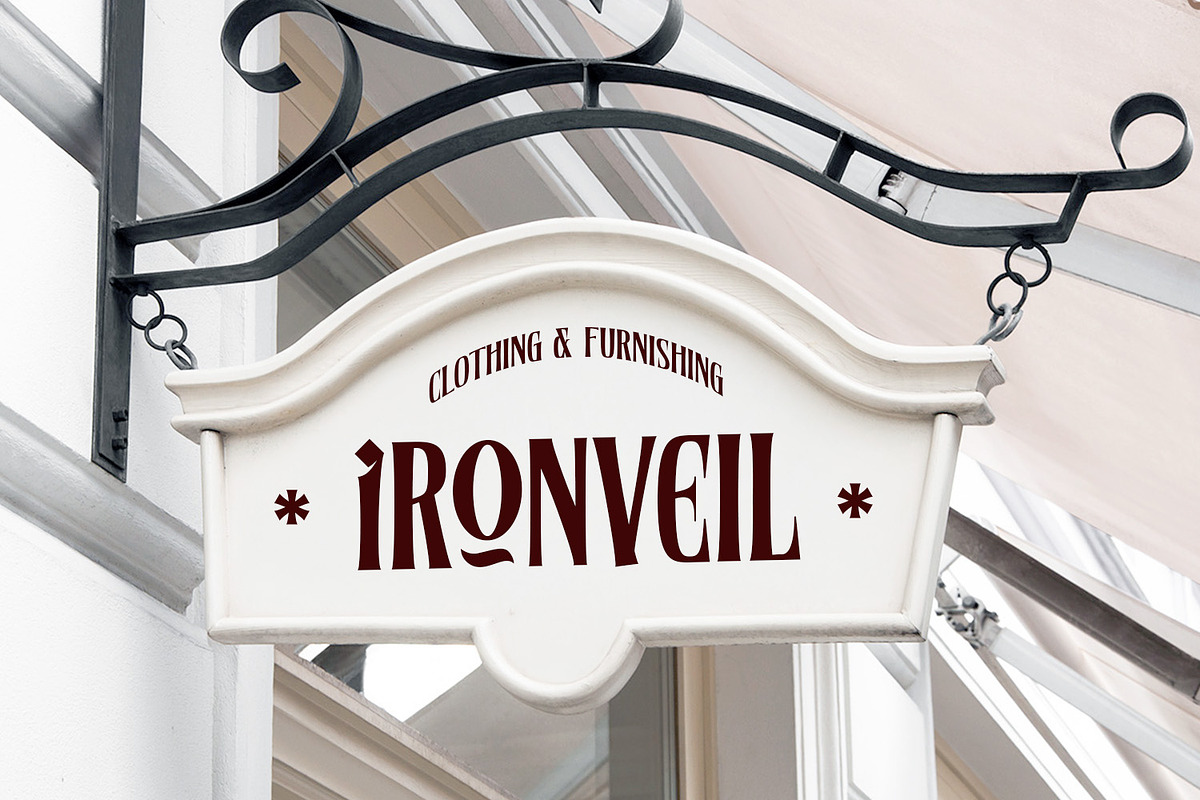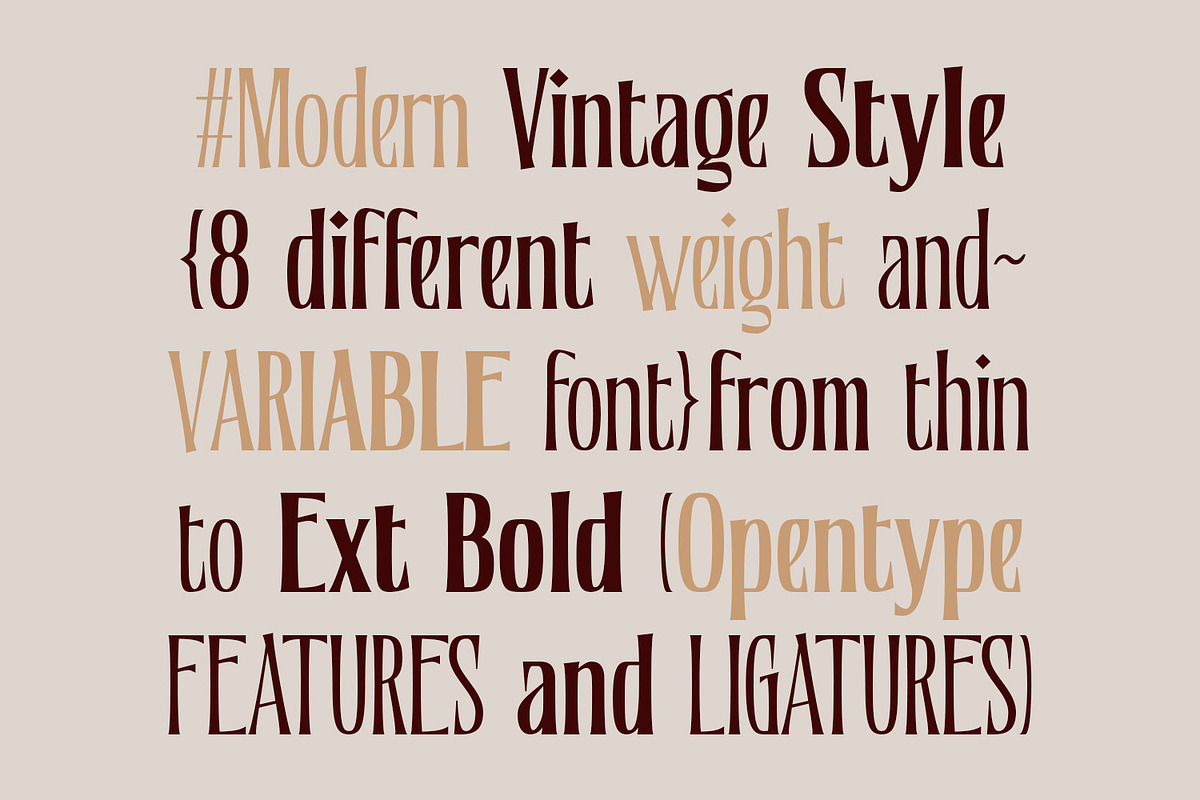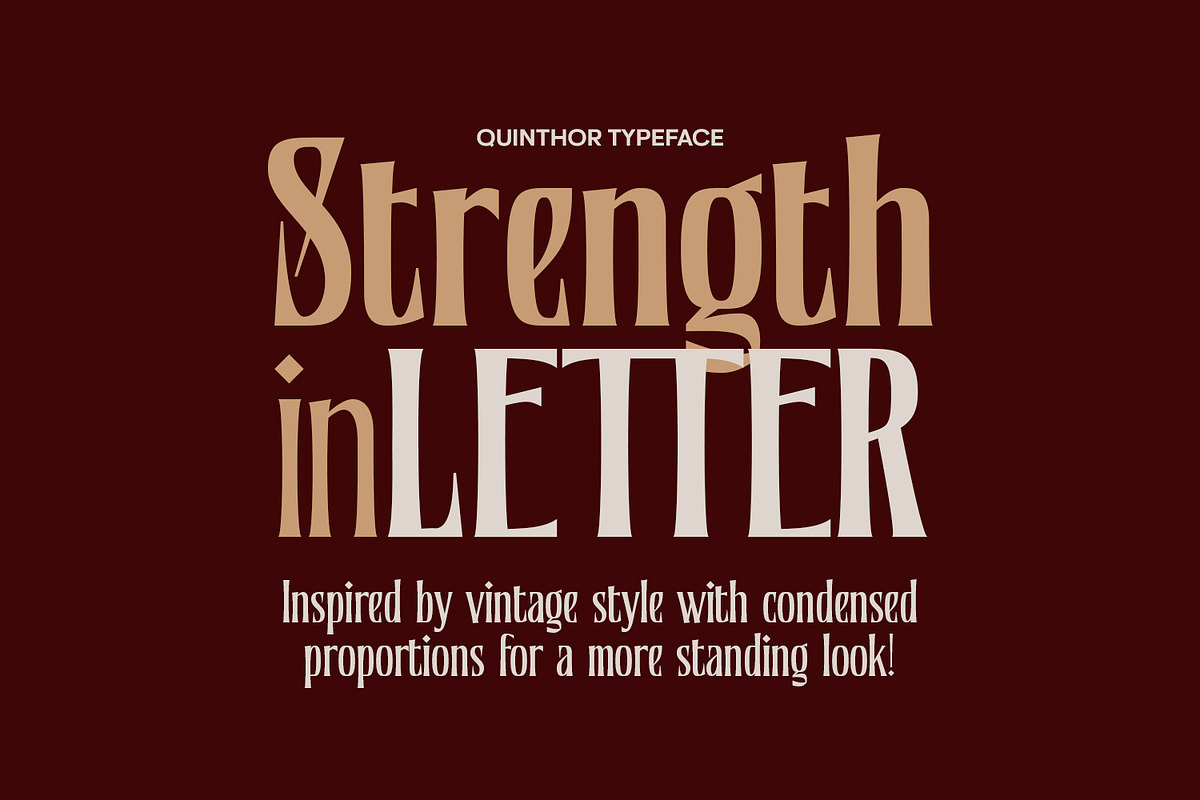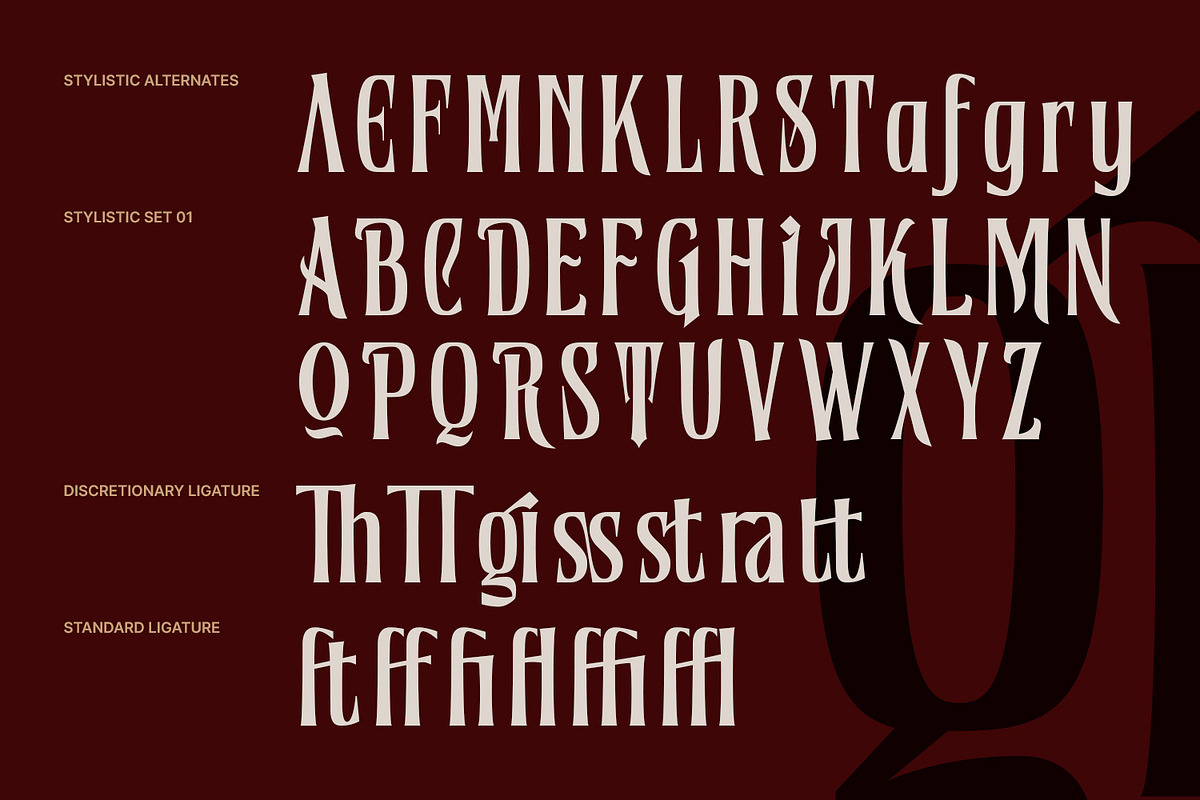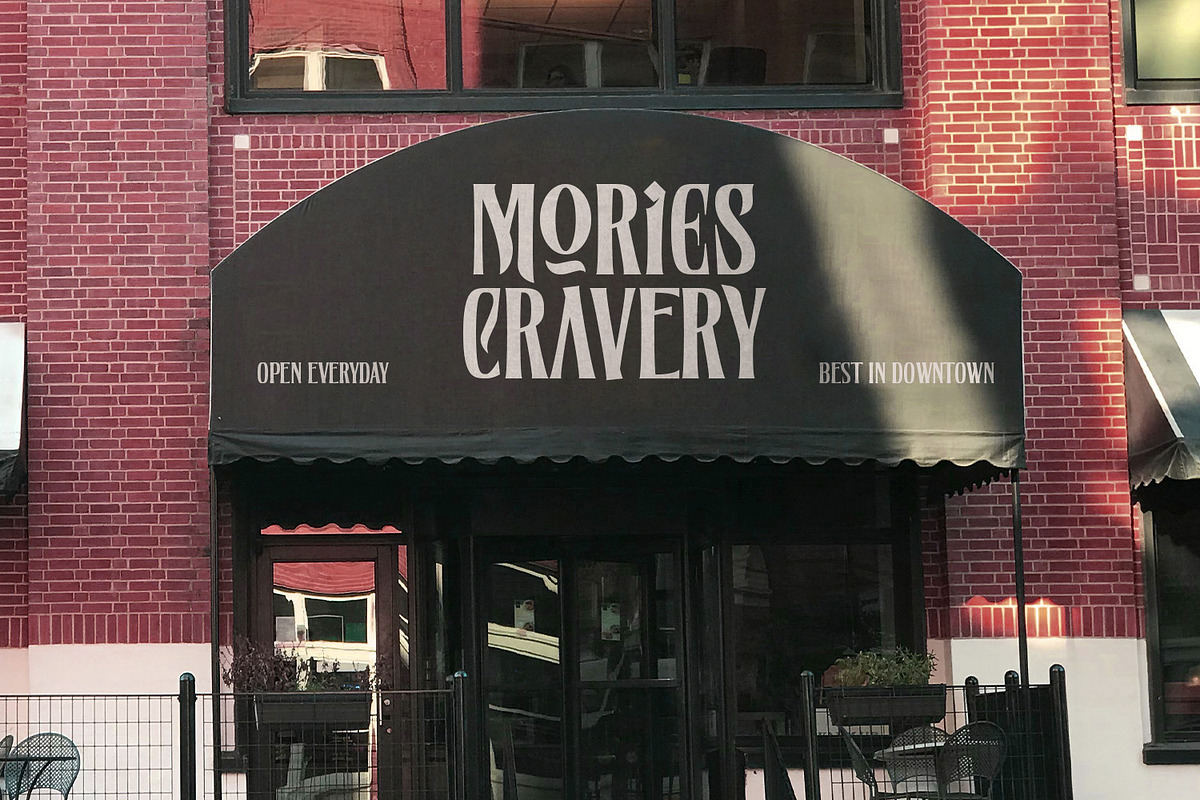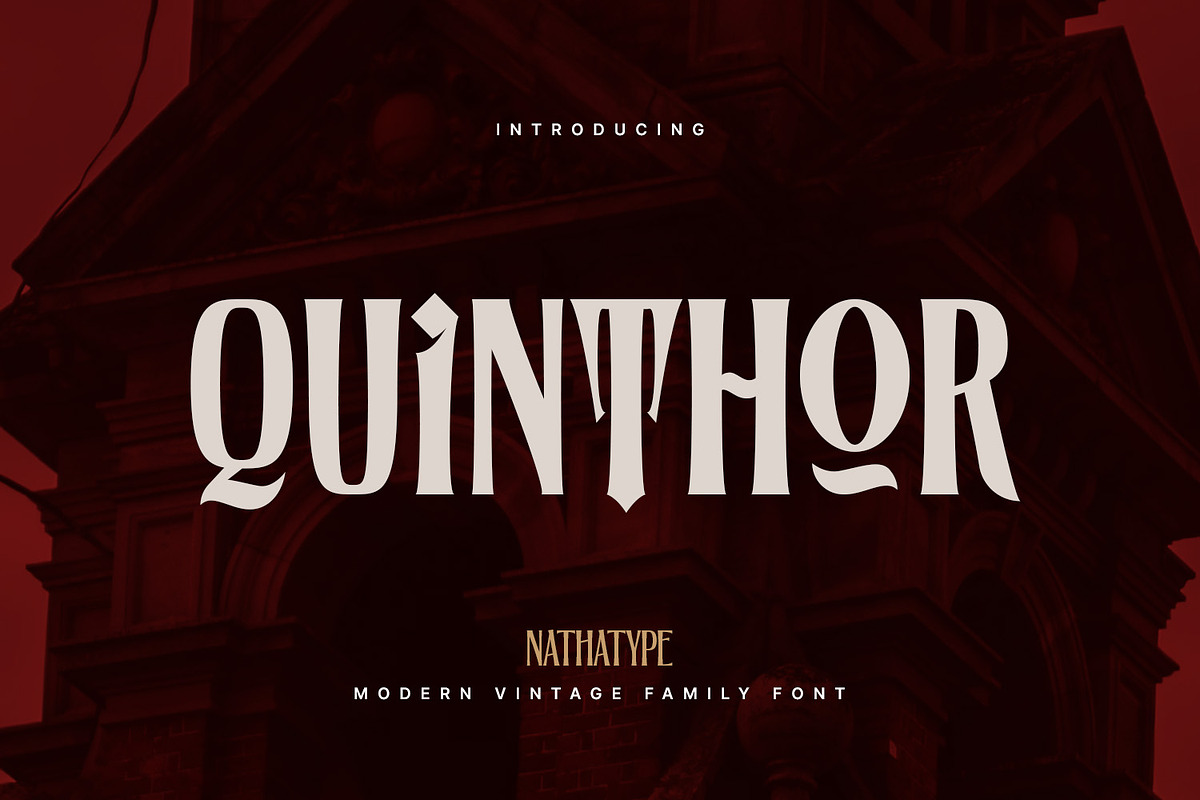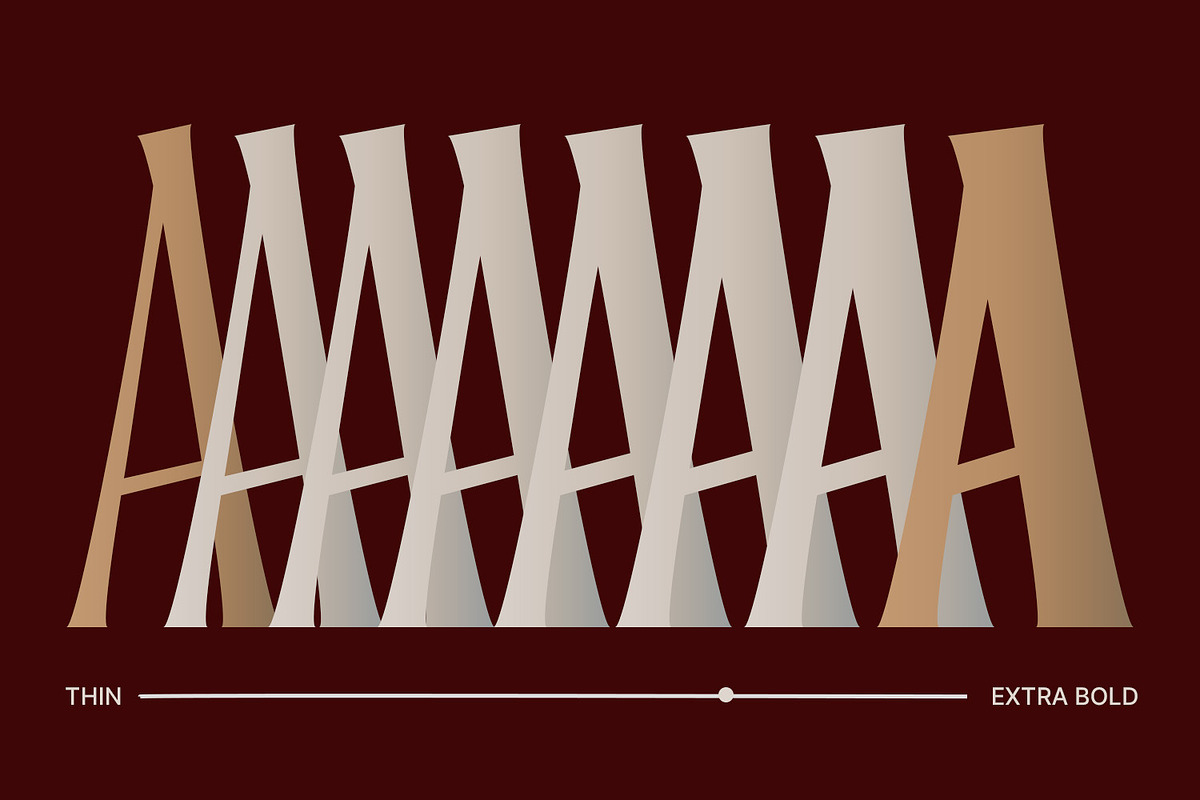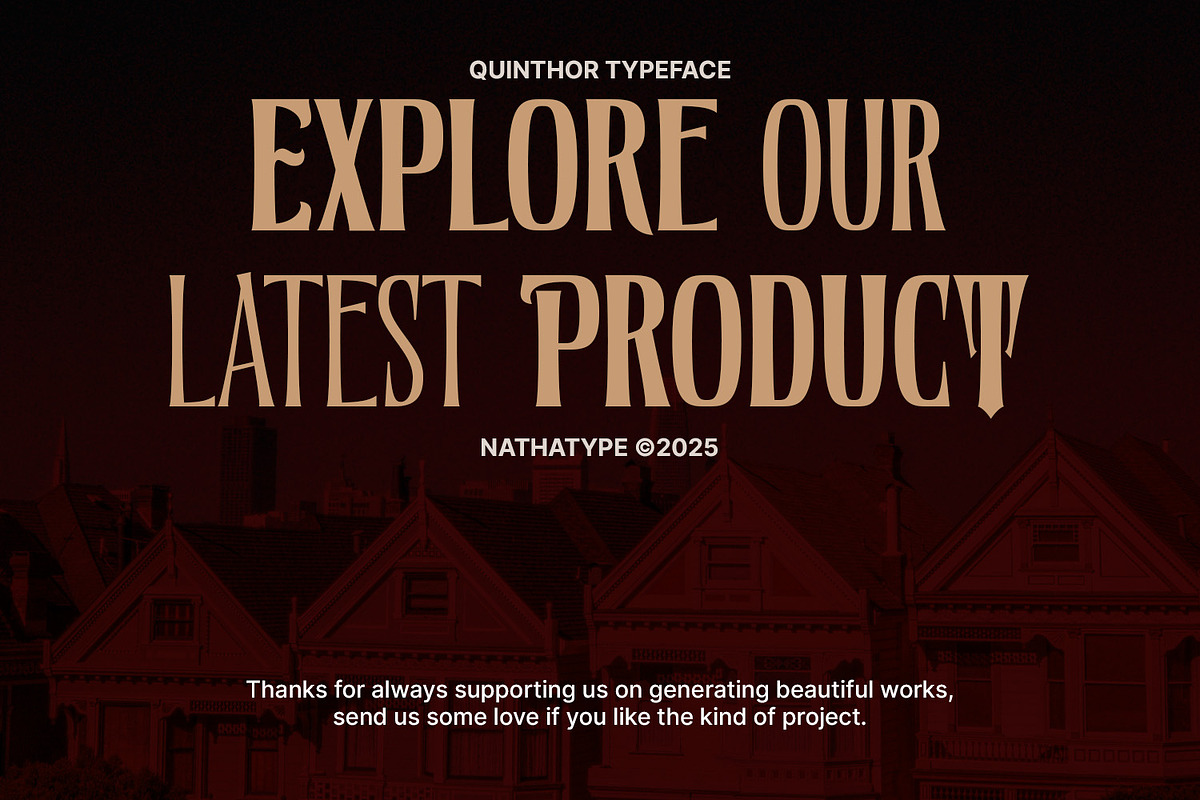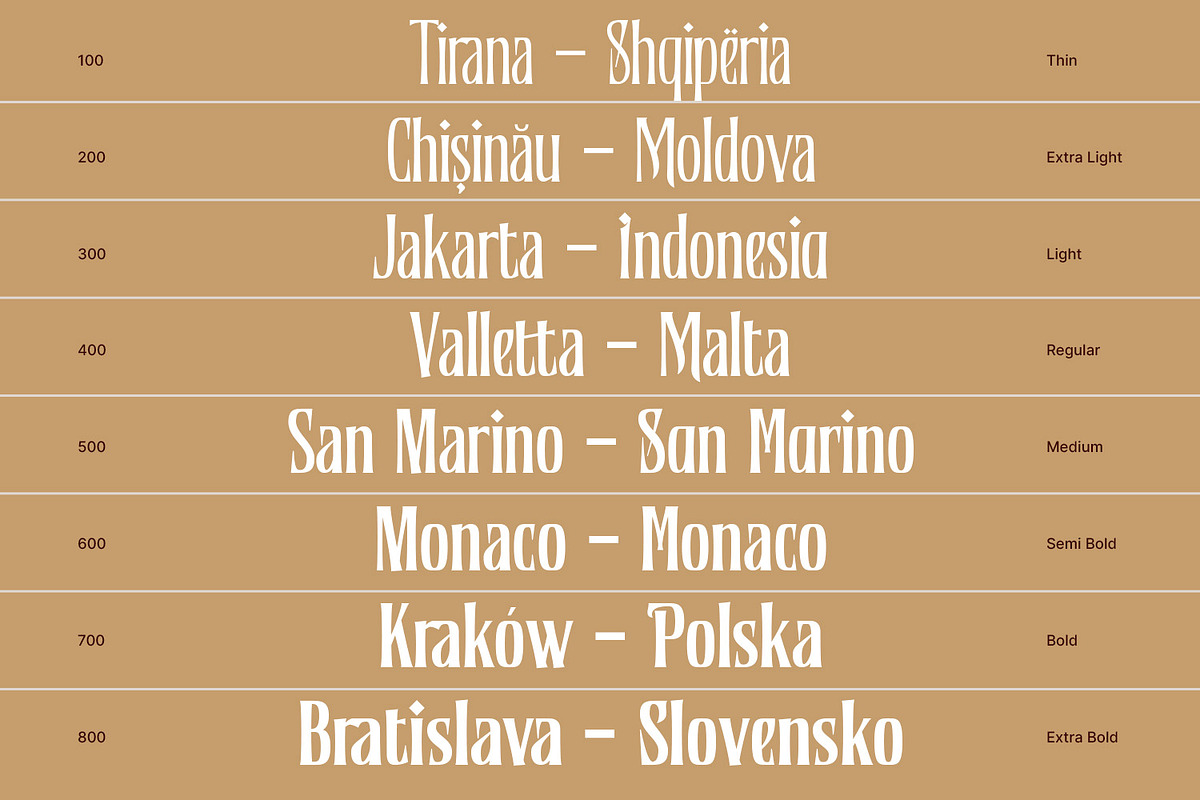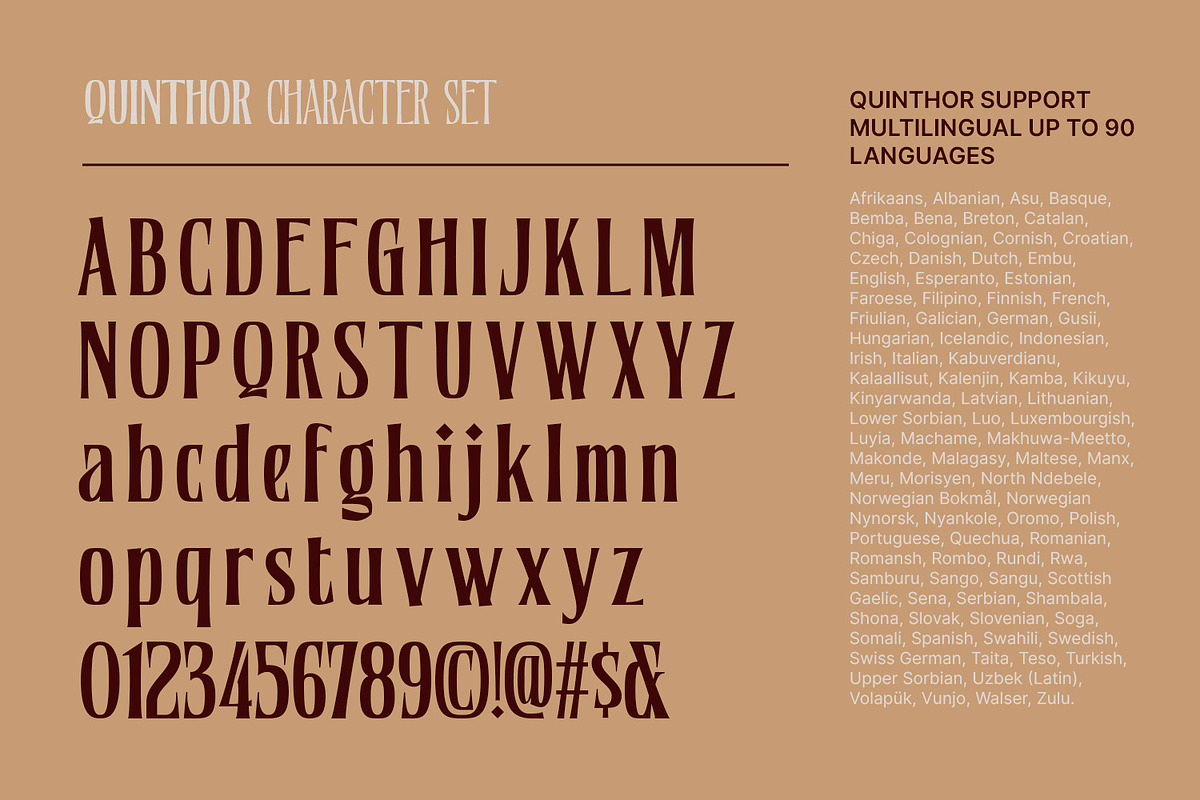
Quinthor
Quinthor is a vintage-inspired font family that revives the ornate elegance of Victorian-era typography. Designed in striking all-capital letters, it offers eight versatile weights, from refined light forms to commanding bold styles. Its detailed letterforms balance decorative charm with bold readability. With its wide range of weights, Quinthor adapts seamlessly to both classic Victorian vibes to modern design. In addition, enjoy the features here.
- Stylistic Sets
Quinthor fits in branding, packaging, logos, posters, headlines, and many more designs. Find out more ways to use this font by taking a look at the font preview.